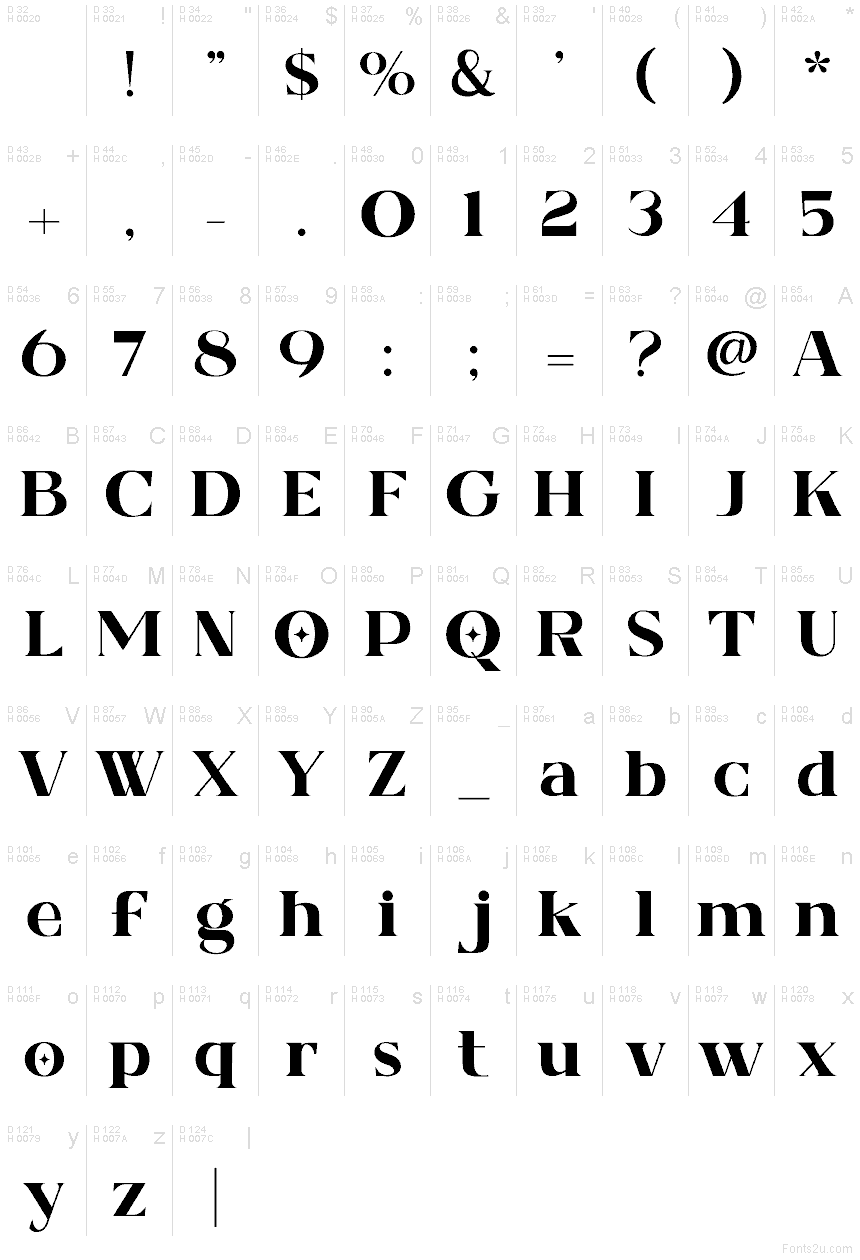
Virgo Delight
Virgo Delight font by Khurasan is an elegant bold serif typeface that brings sophistication to the table with ornamental elements. Classic, refined, and easily recognizable, this free serif font depicts a luxurious feel often wanted in identity design.
Virgo Delight in its boldness achieves great looks across headlines but goes way beyond for branding, advertising, magazines, posters/flyers, signage & billboards. Use it digitally or on print in packaging or presentation design. Timer your imagination and find yet other ways that have not even been mentioned for its usage.